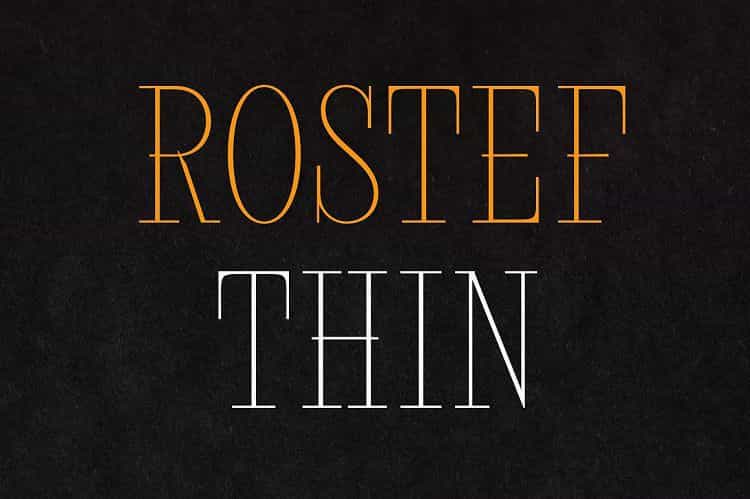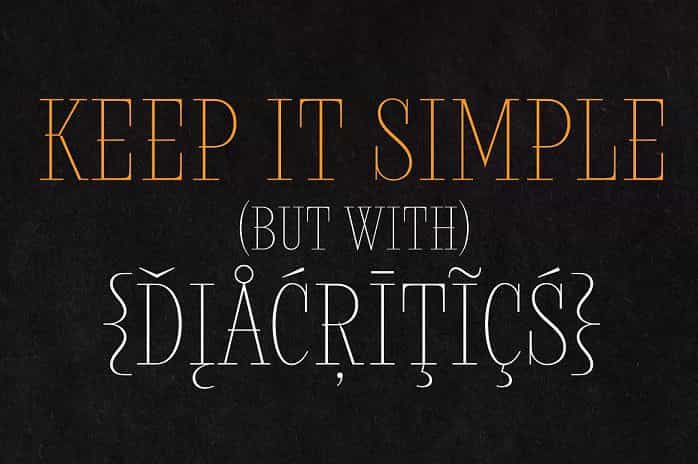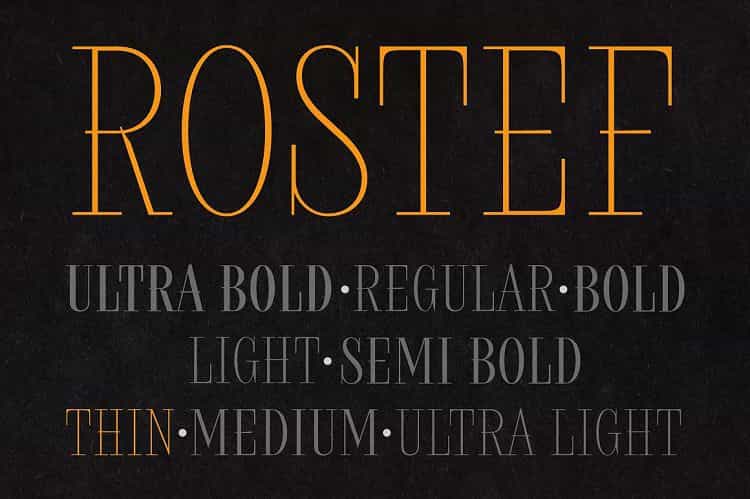
Discover Rostef Thin Font, part of the Serif Display Retro collection—a versatile and unique font perfect for adding a personal touch to your projects. Download it for free and enjoy crafting designs with style, from invitations to social media posts. This font is available exclusively for personal use, giving you the freedom to create without limits. Unlock your creativity with Rostef Thin Font today!
Introducing Rostef. It is a font that was created by glukfonts, which is a premium font and it is sold on creativemarket. However, today it can be downloaded for free. Make use of the decorative, display Rostef Thin font in TTF and OTF format. The font has 464 characters with an extended Latin character set. Just right for logos, titles, invitations and magazines.